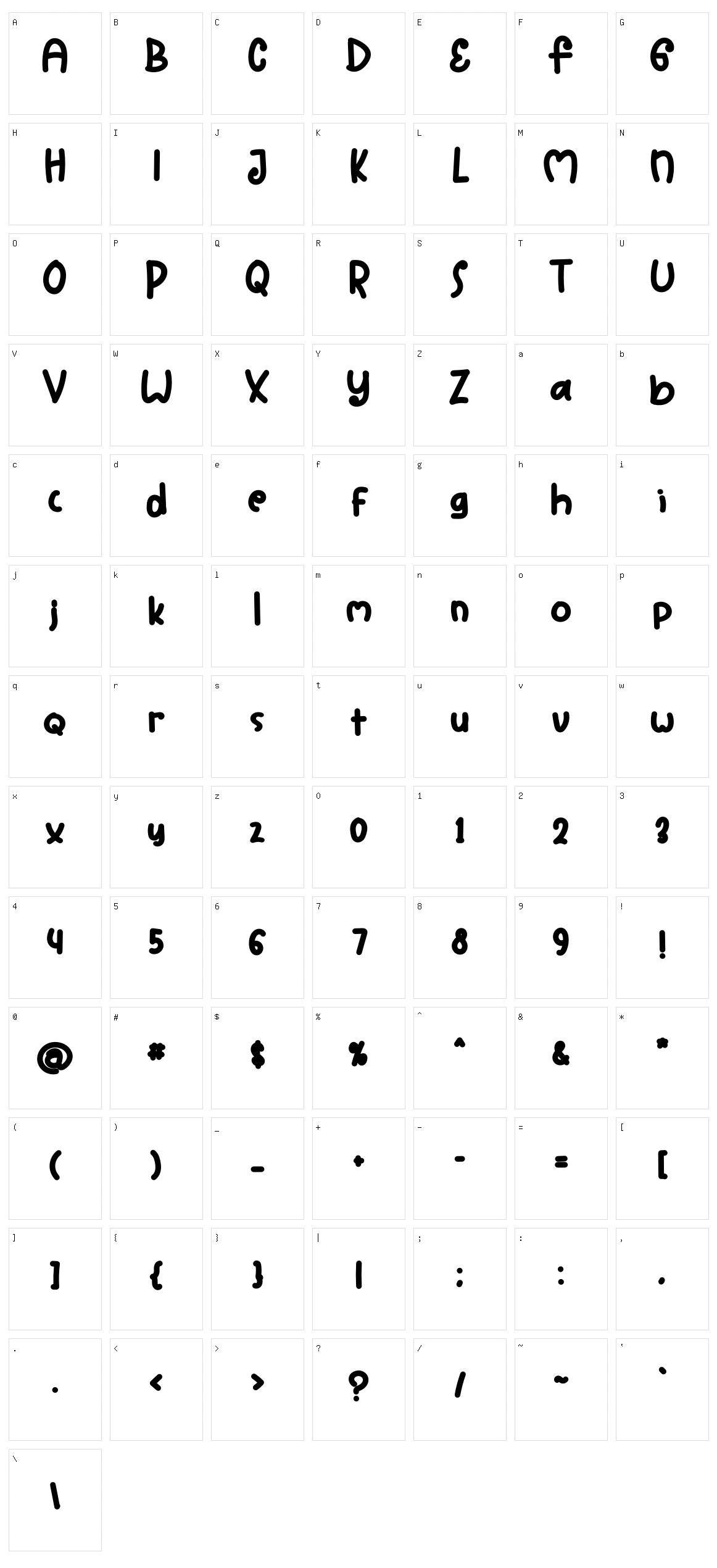
The free font Kitchen Restaurant is carefully designed by Mr.Soon Design, showcasing a thoughtful balance of creativity and usability and falls under the Cartoon font style. When you download the ZIP file, it contains only 103.28 KB of font files, making it lightweight and quick to download. Please review the license details below to understand permitted usage and distribution rights. If license information is not available, we recommend using this font for personal projects only or contacting the author directly for commercial usage permissions.